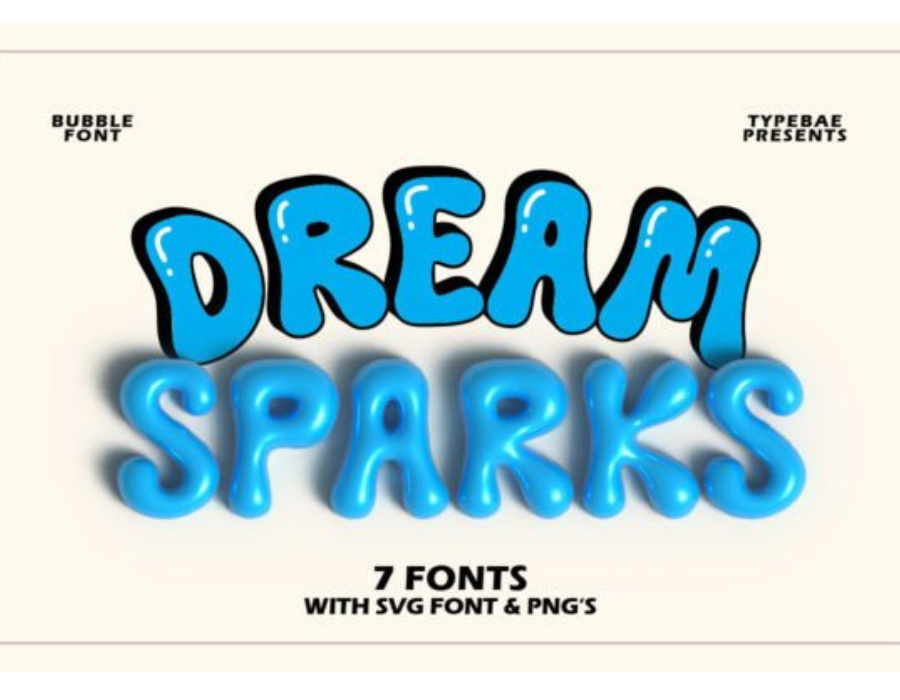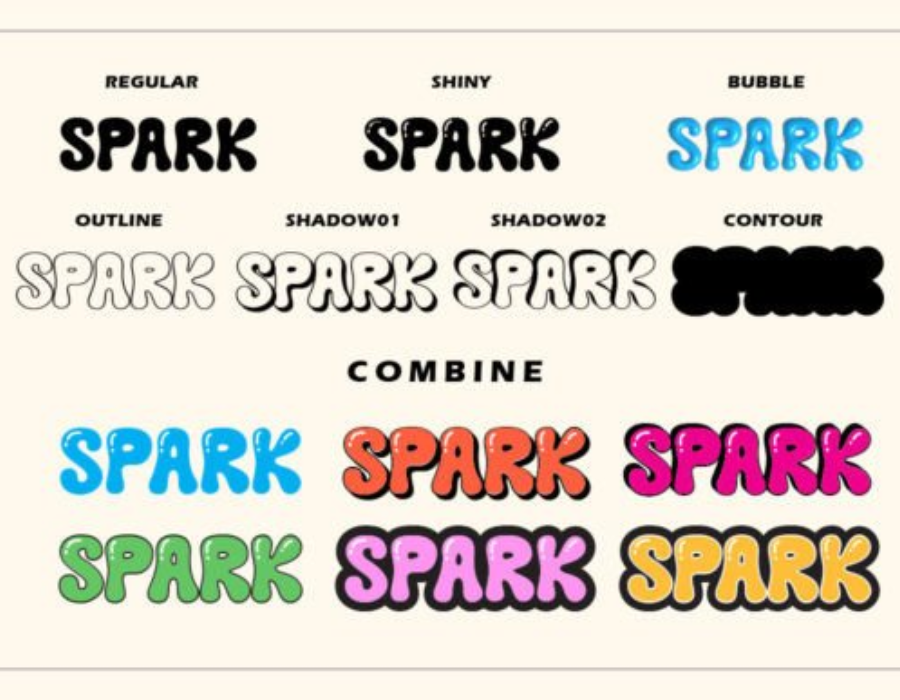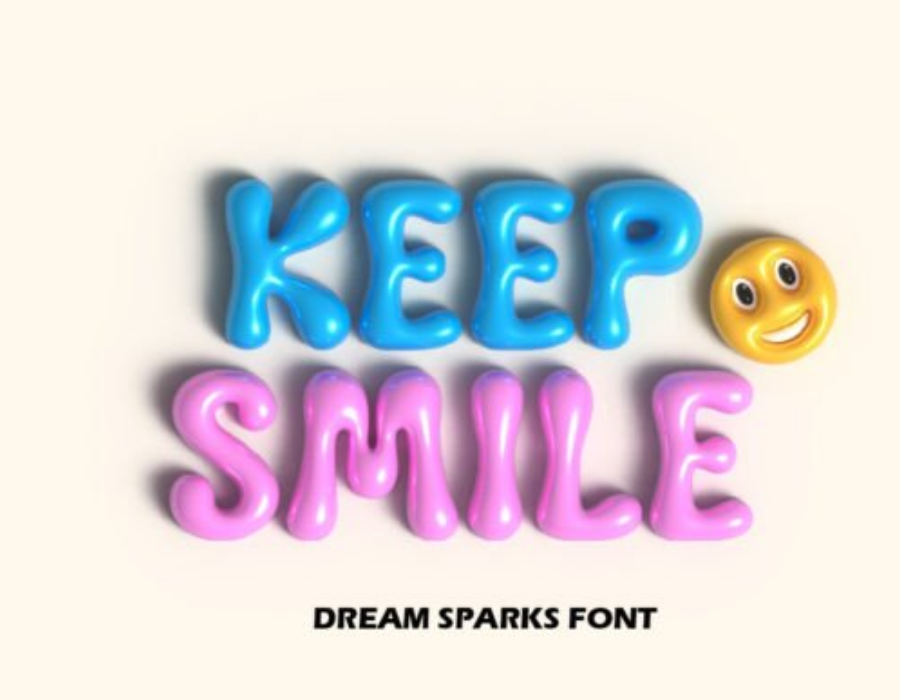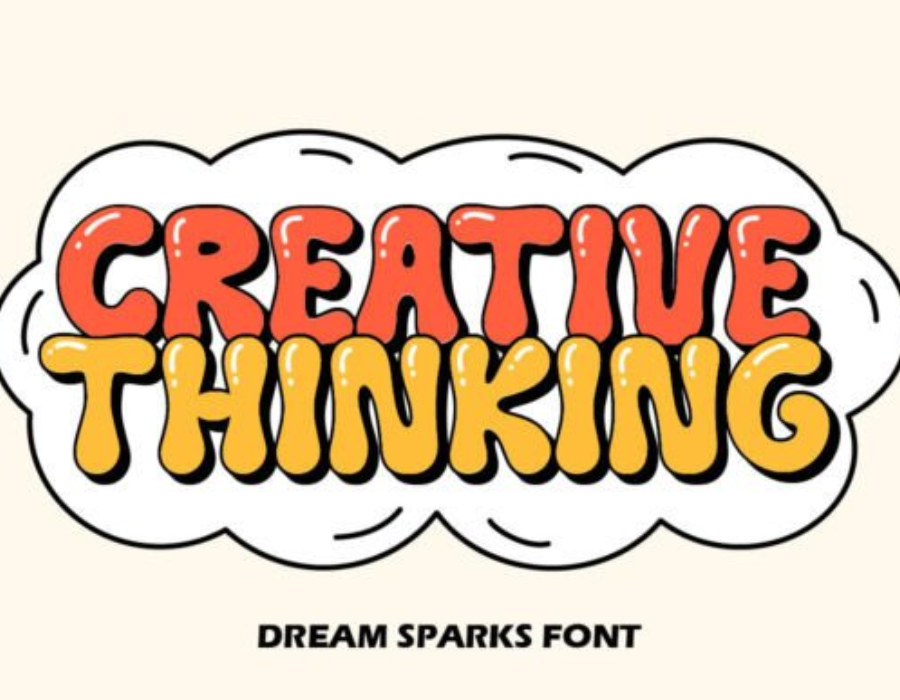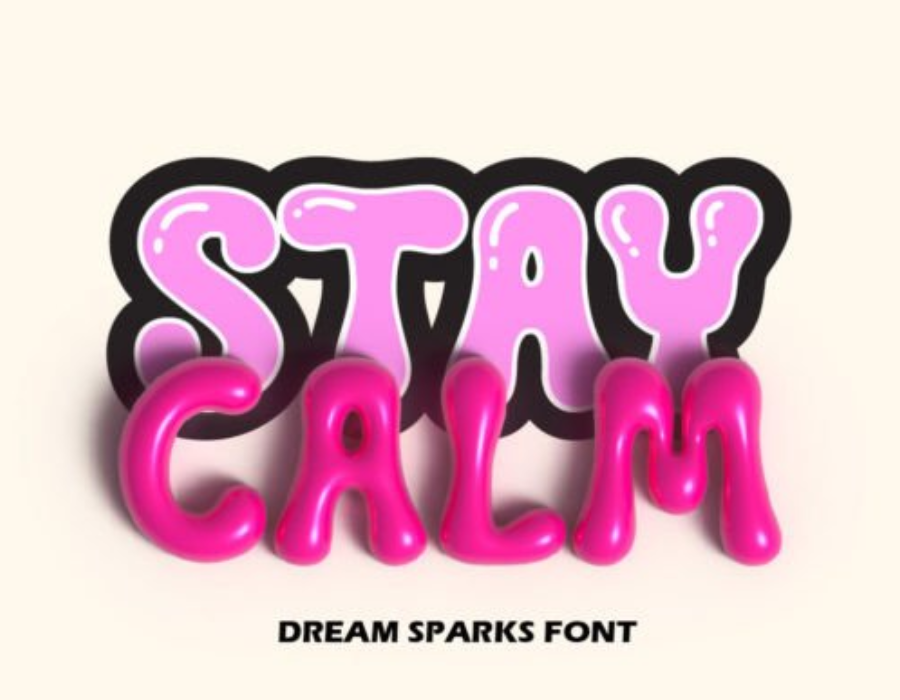
Aesthetic Fonts / Bubble Font / FontsTrending Dream Sparks Font 19/05/202527/05/2025 - by Awais Farooq Dream Sparks Font is a bubble font with a lively appearance that will fill your designs with cheerfulness! It’s great for covers, posters, spring designs, marketing materials, and anything that needs to stand out! Related Posts:The Unique Book Mockups BundleThe Trending Bubble Block FontBlack Dakota Font Download Rudra Great FontVertical Kraft Soap Box Packaging Mockup Download Bull Stand FontThe Hit Bubble Bath FontDownload Snaokesur Font Download Nasty Habit Font Download Plastic Container Jar MockupBest Blacksiny Font DownloadThis is A4 Magazine Mockups for CanvaBlack Hearts Font DownloadThe Unique Bubble Soda Jelly FontA Big Fat Gothic Font Collection